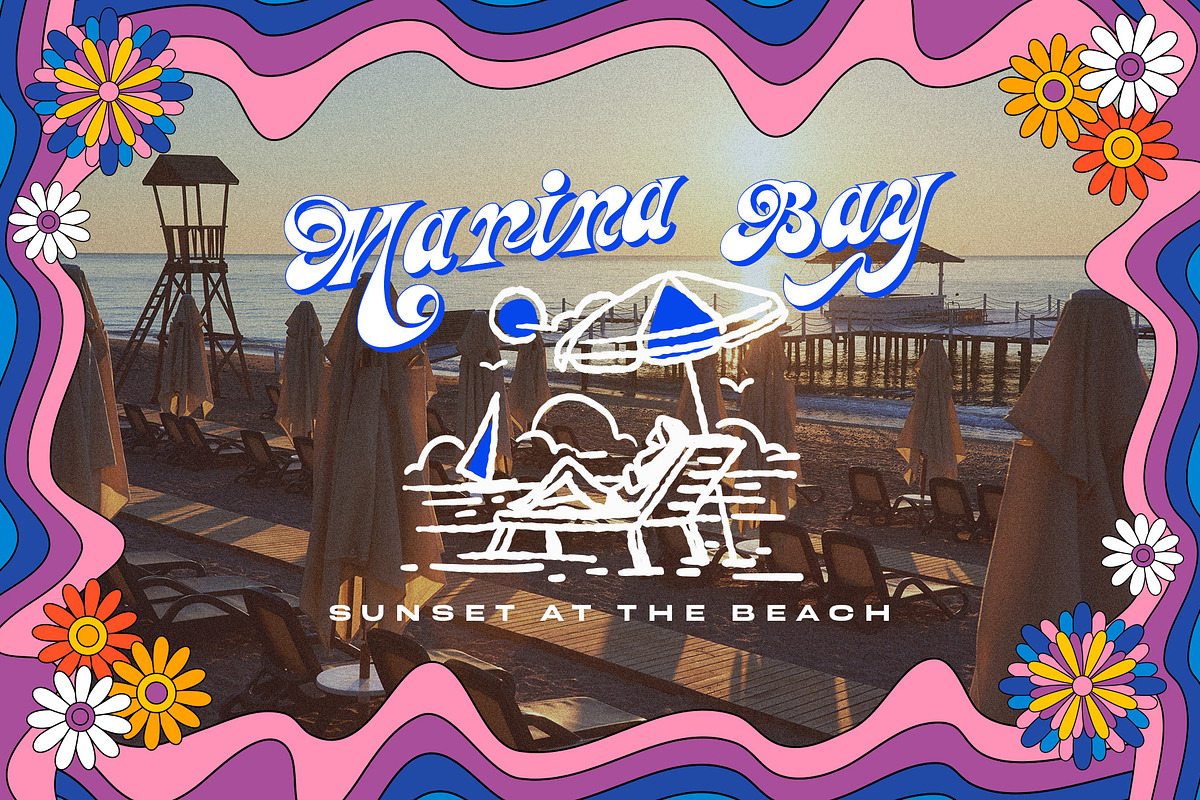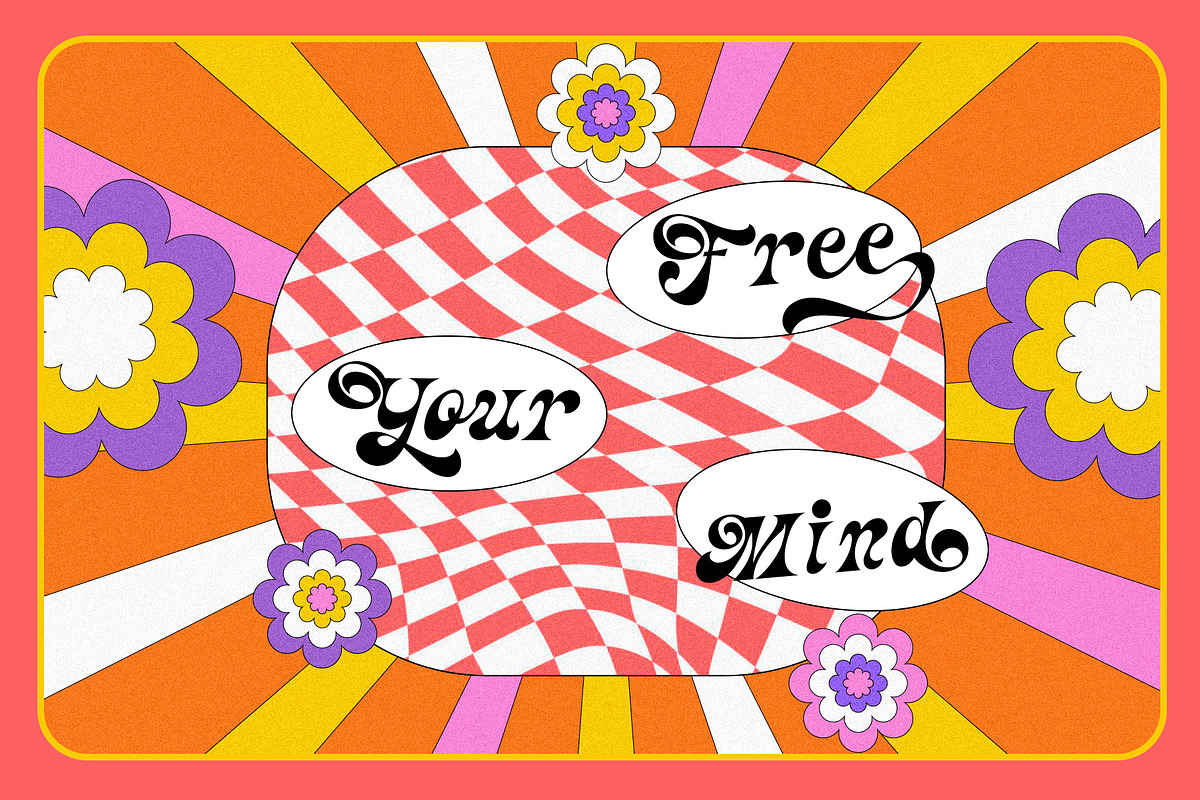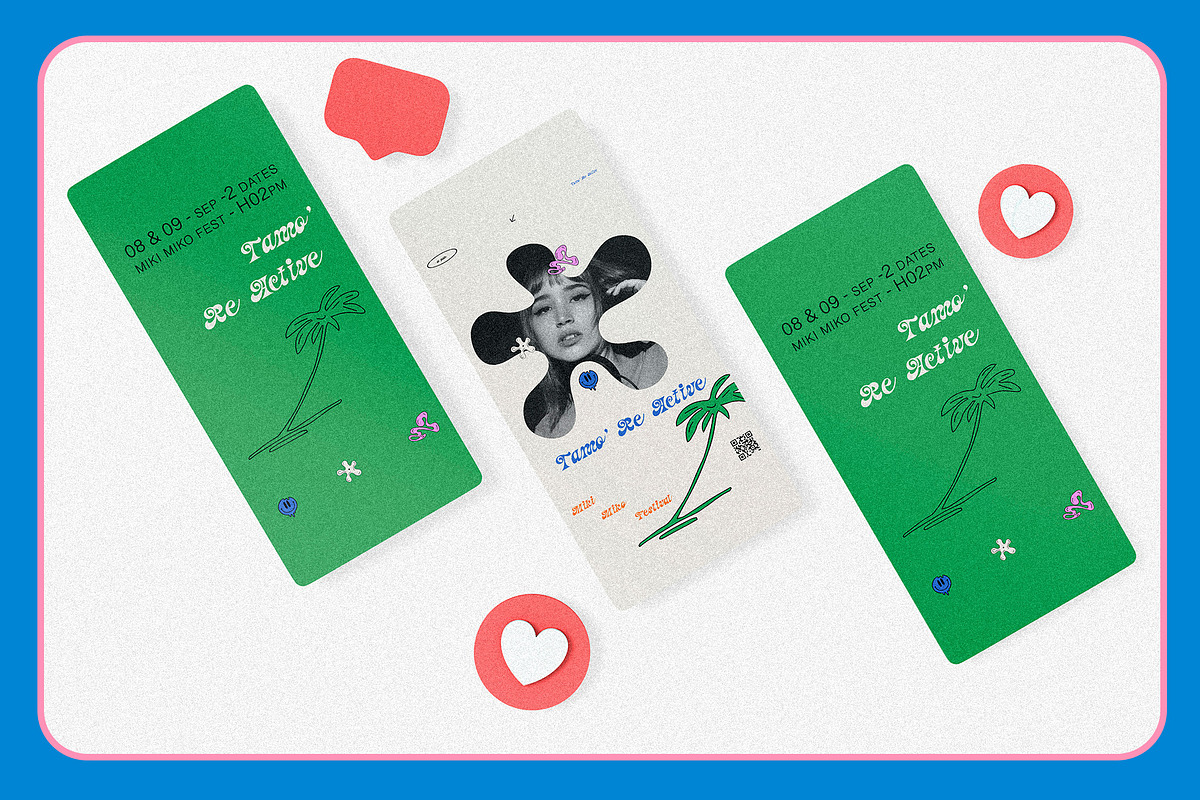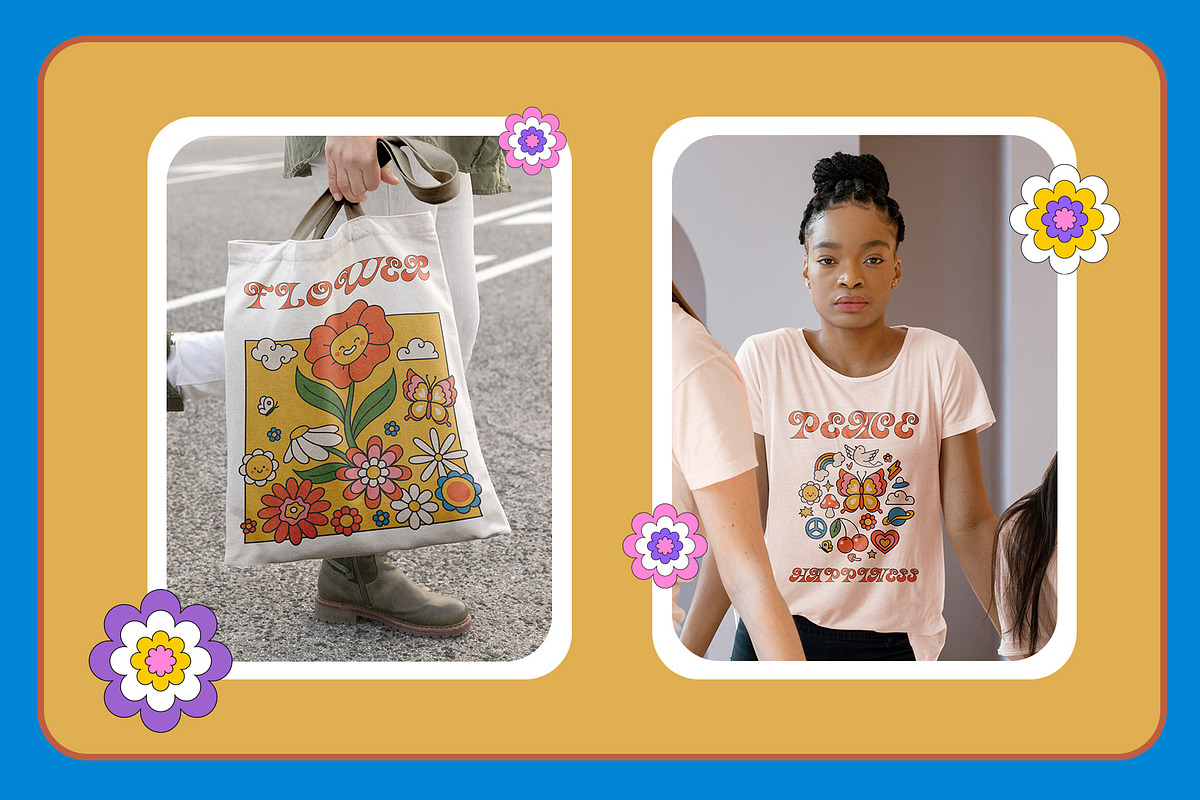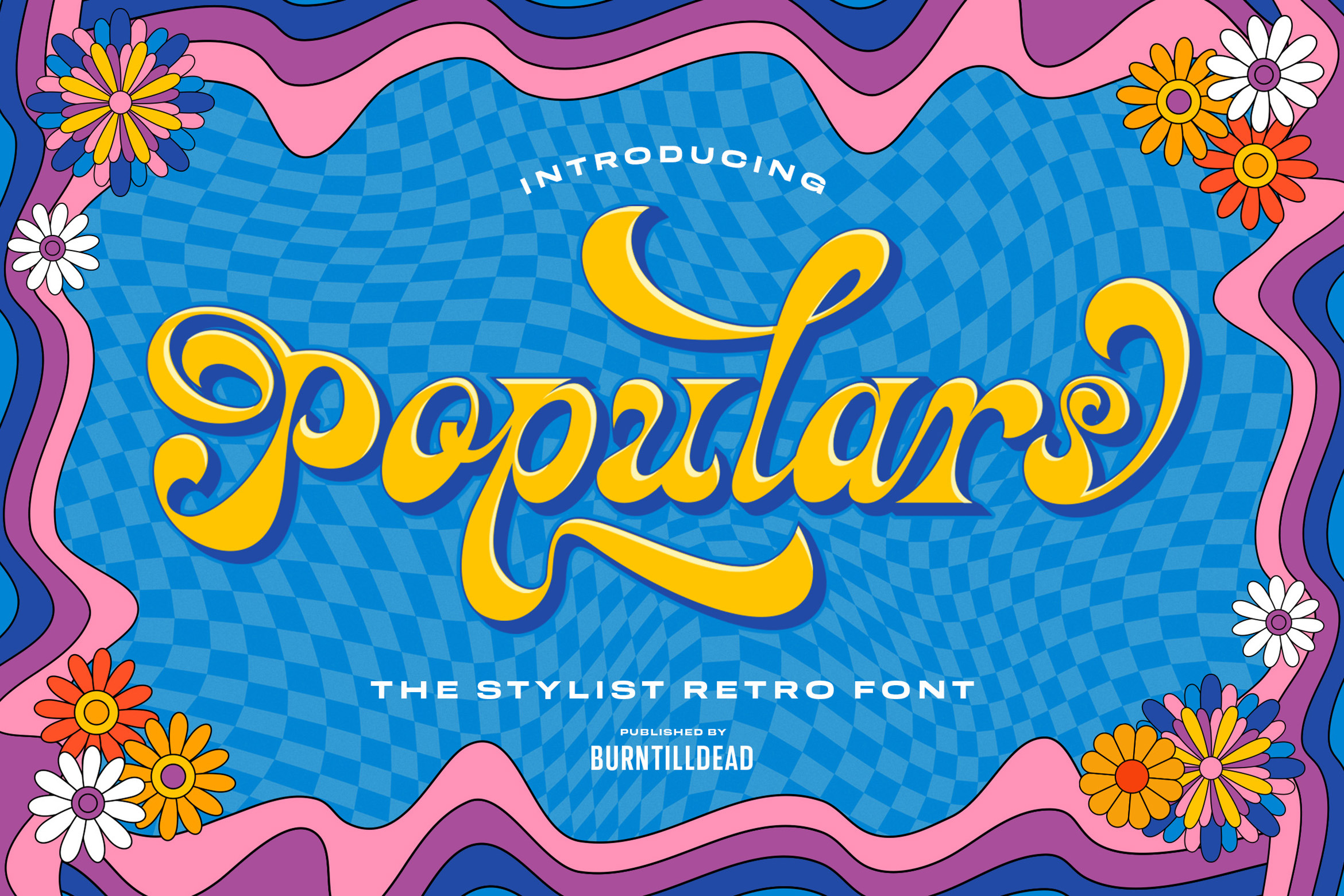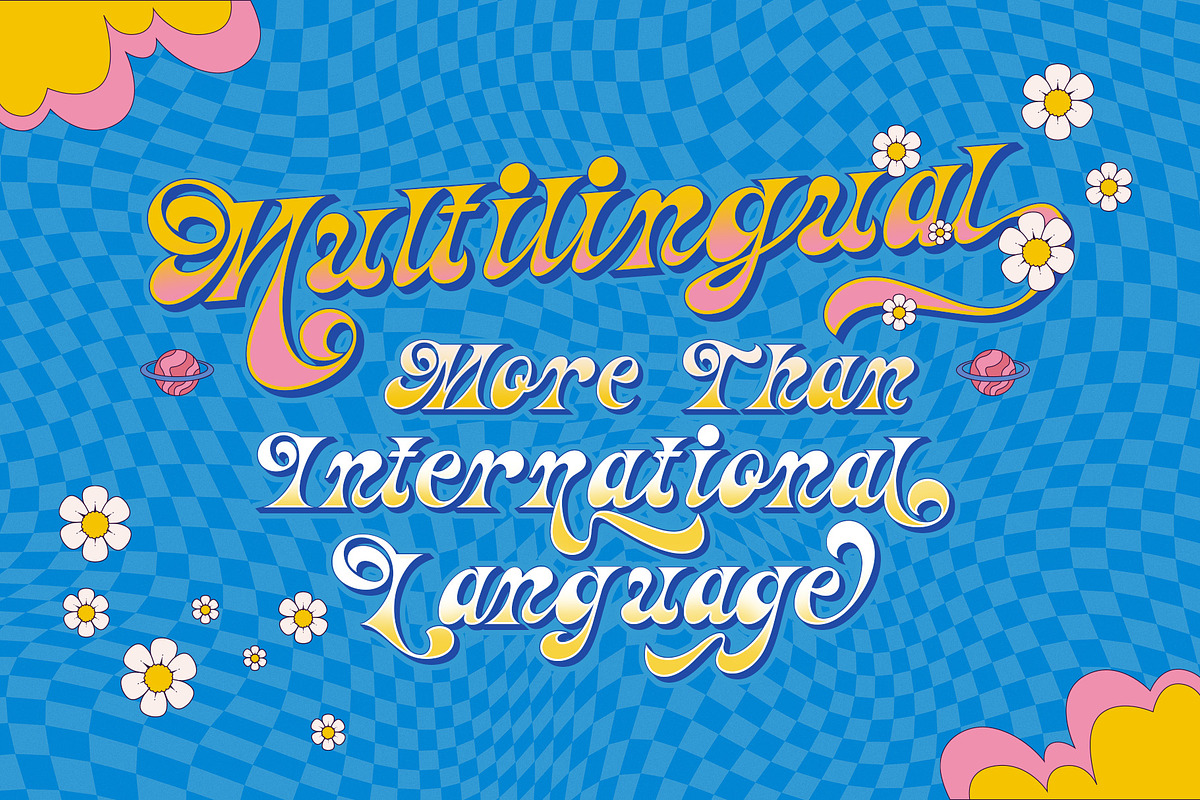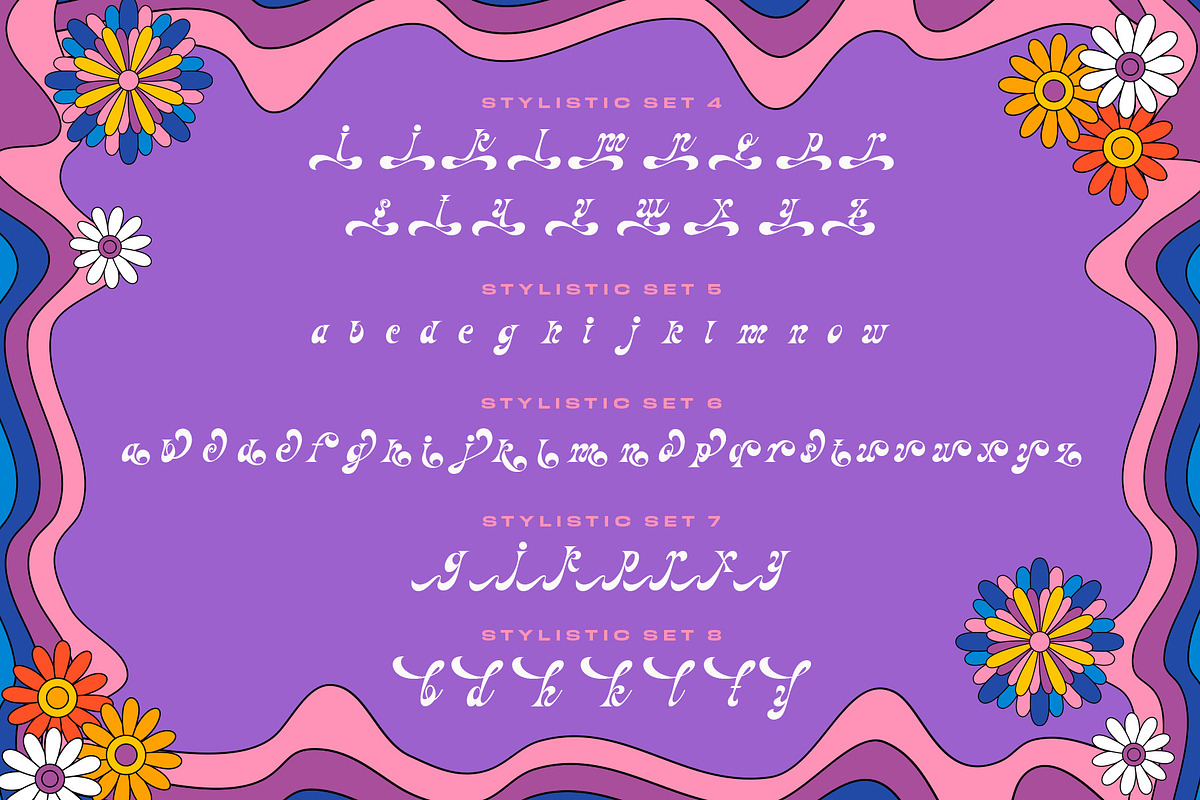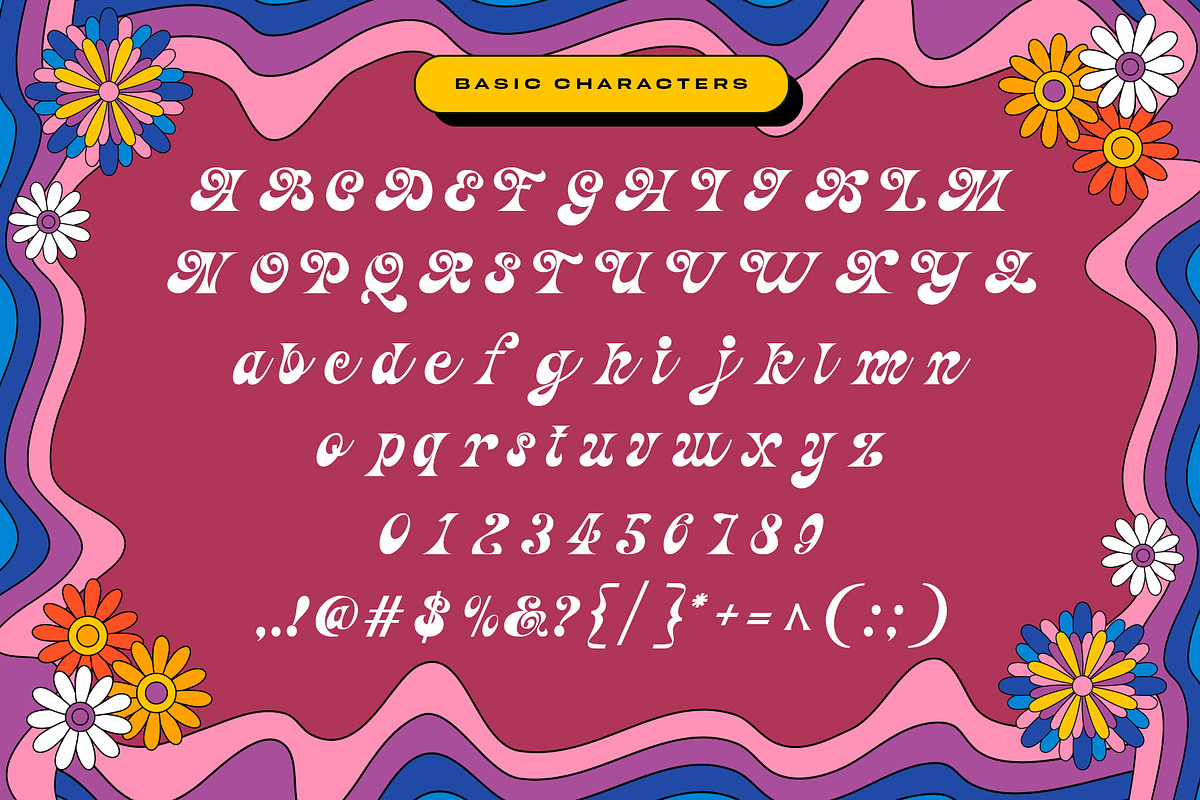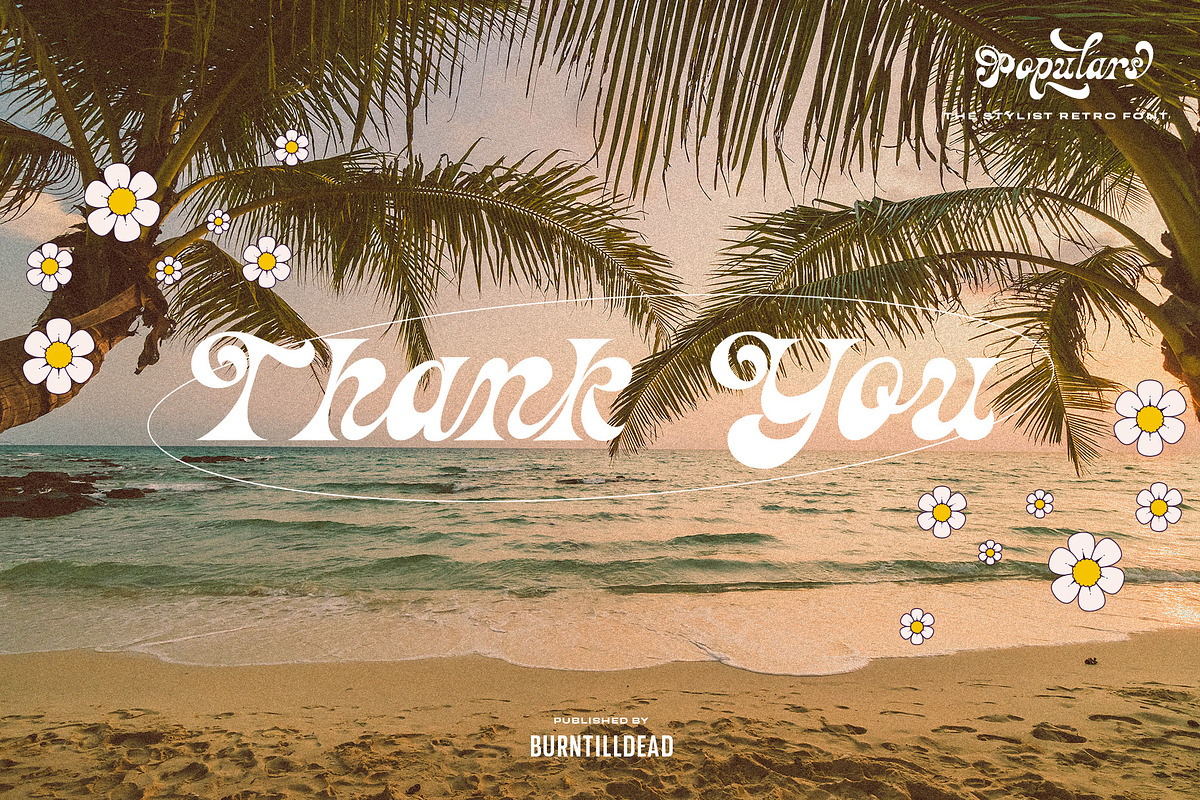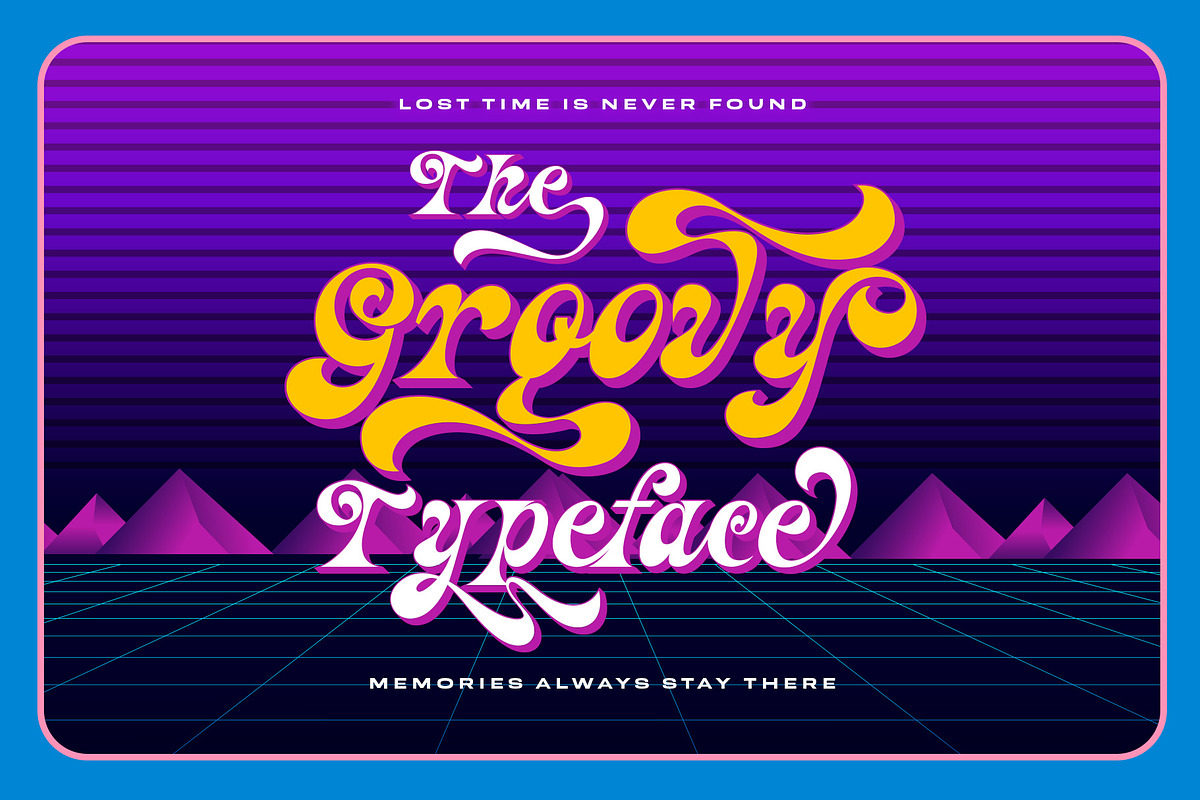
Populars - Stylist Retro Font
Do you love the vintage vibe of the past? Do you want to add some flair and personality to your designs? If so, you need a retro script font that can capture the essence of the old times.
Say hello to "Populars", a retro script and cursive font that have a distinctive style and charm. They are perfect for logos, posters, invitations, labels, and more.
Whether you want to create a nostalgic, elegant, or funky look, Populars is a perfect choice for you. Check out these amazing retro script fonts that will make your designs stand out.
A-Z Character Set
a-z Characters set
Numerals & Punctuations (OpenType Standard)
ligature
fraction
Stylistic Alternates (01-08)